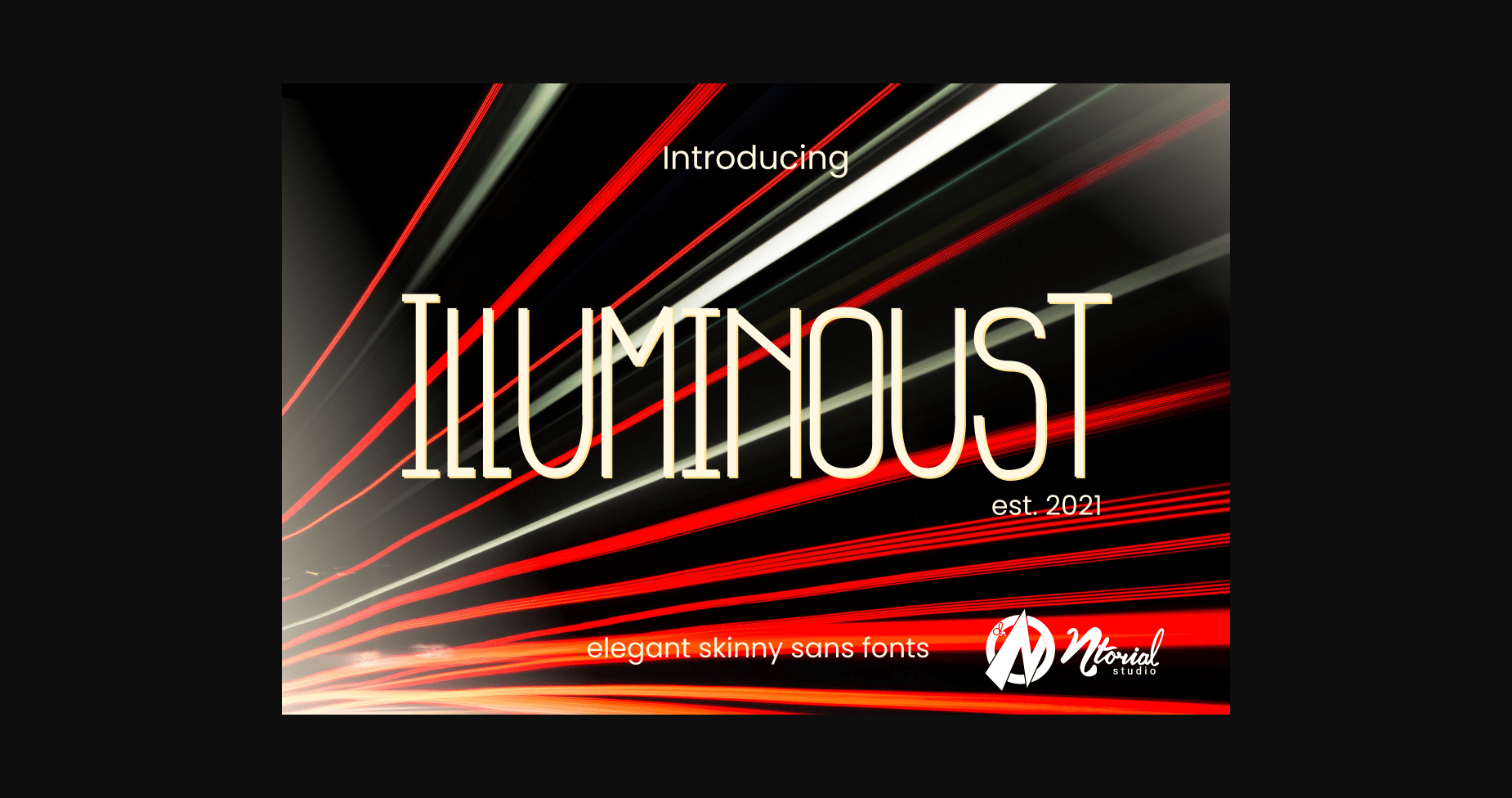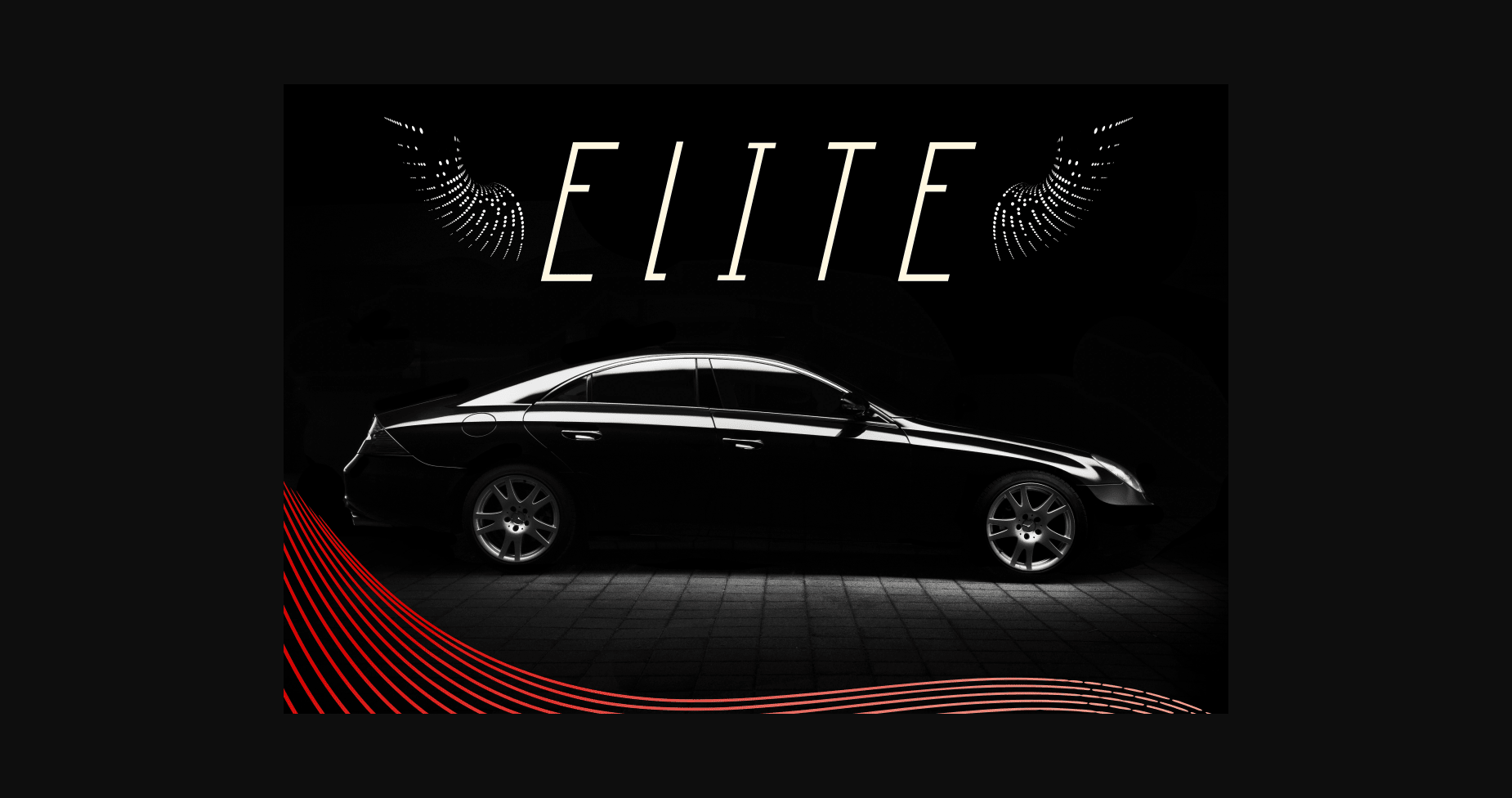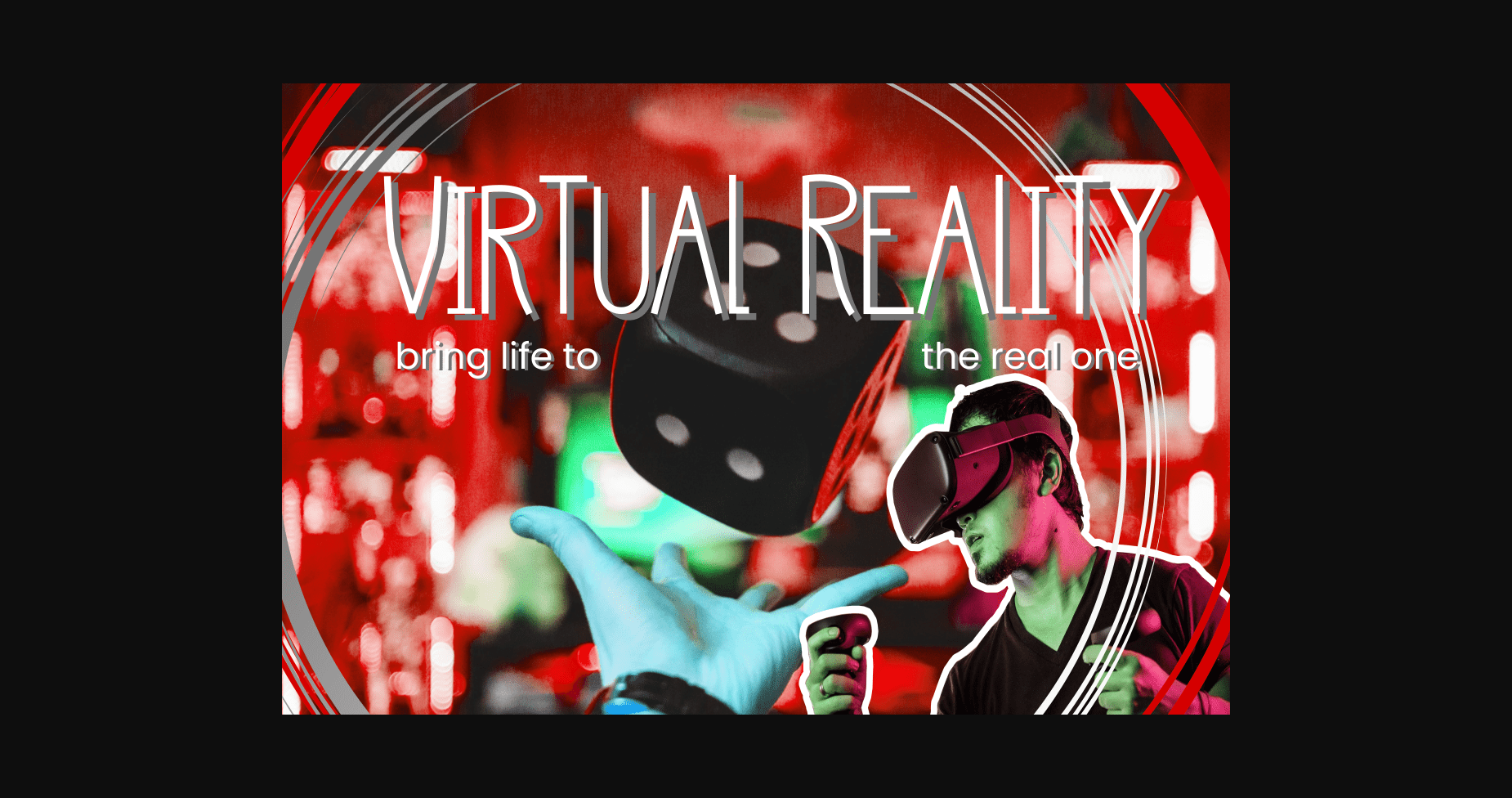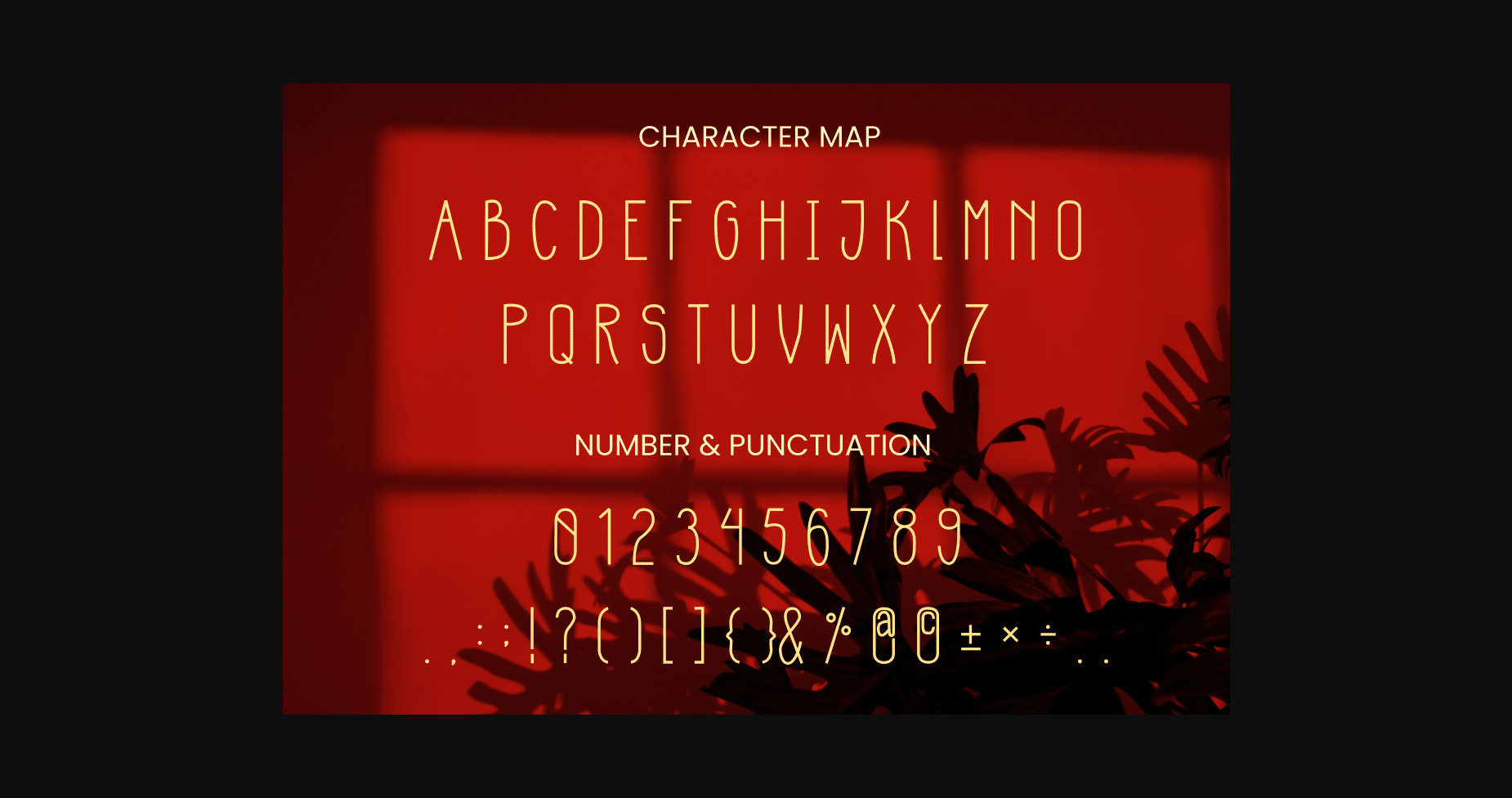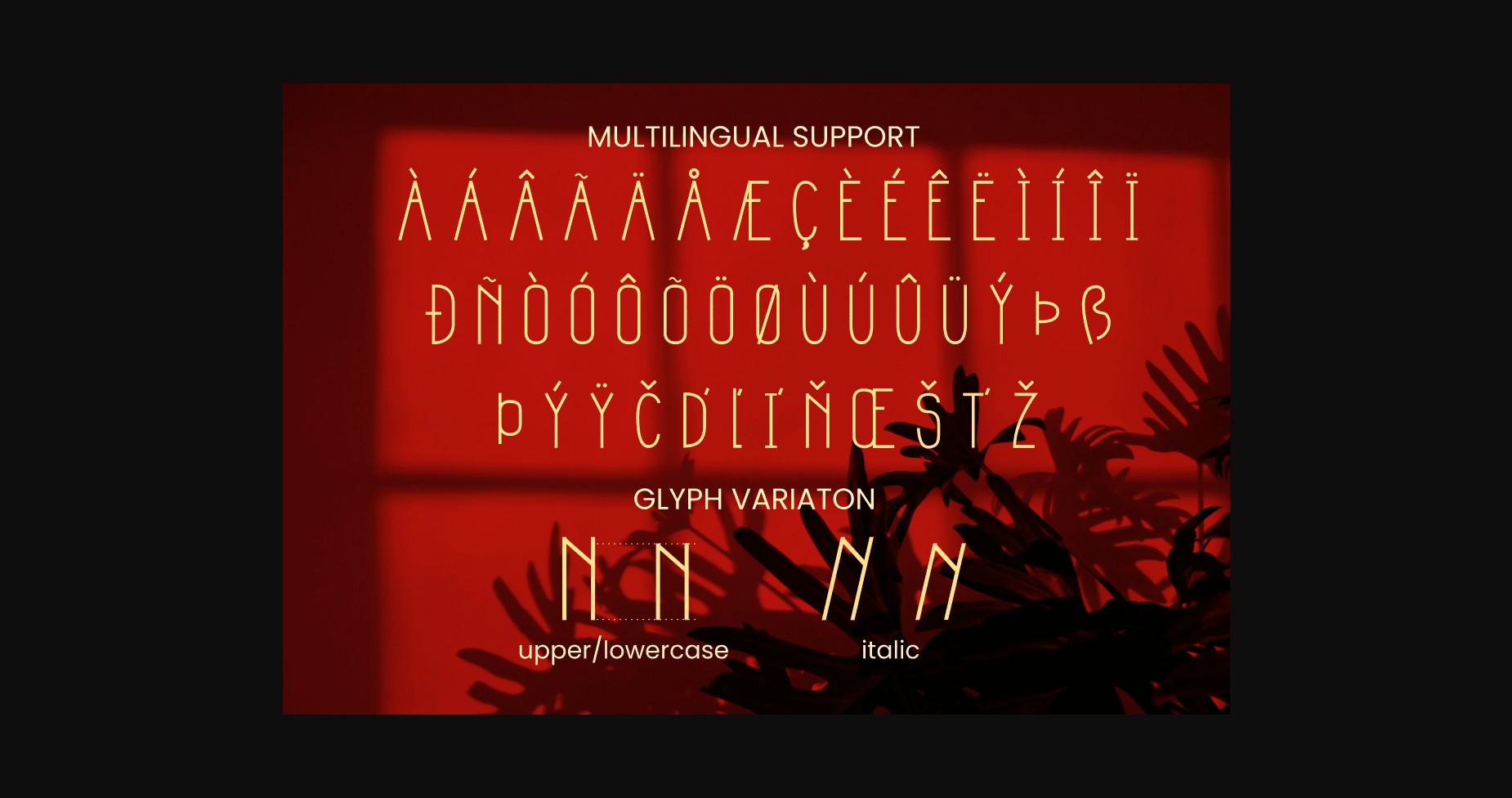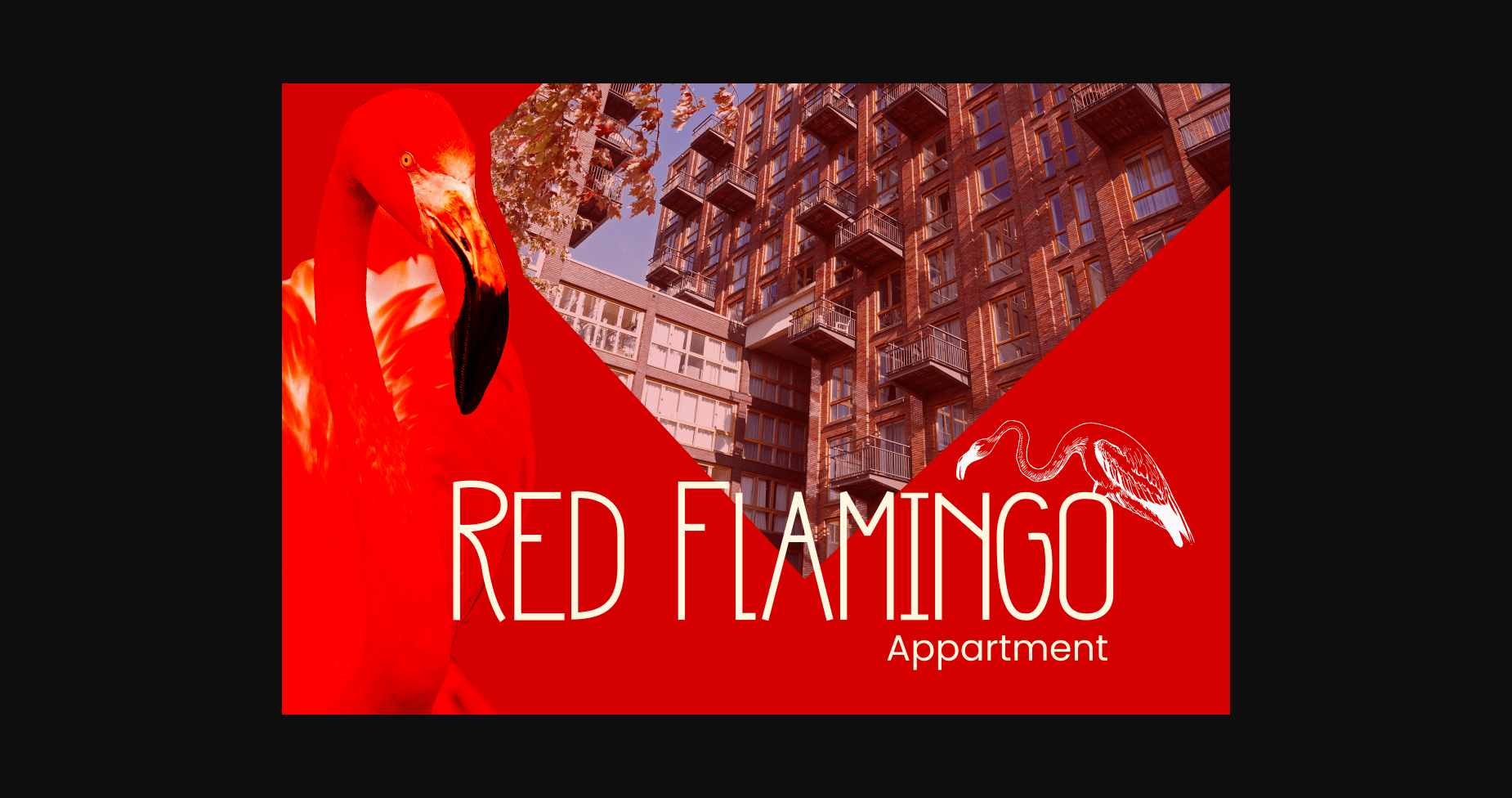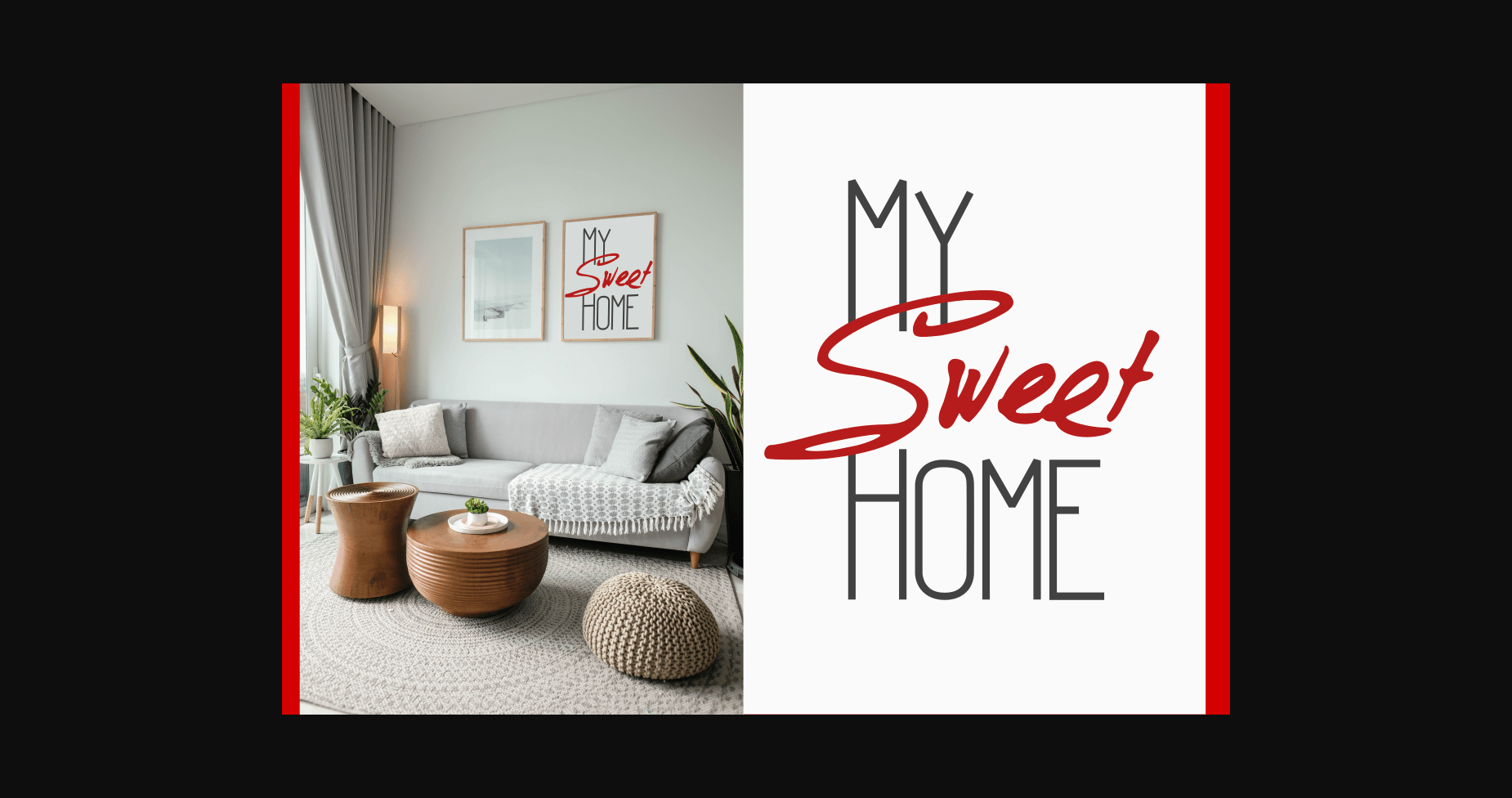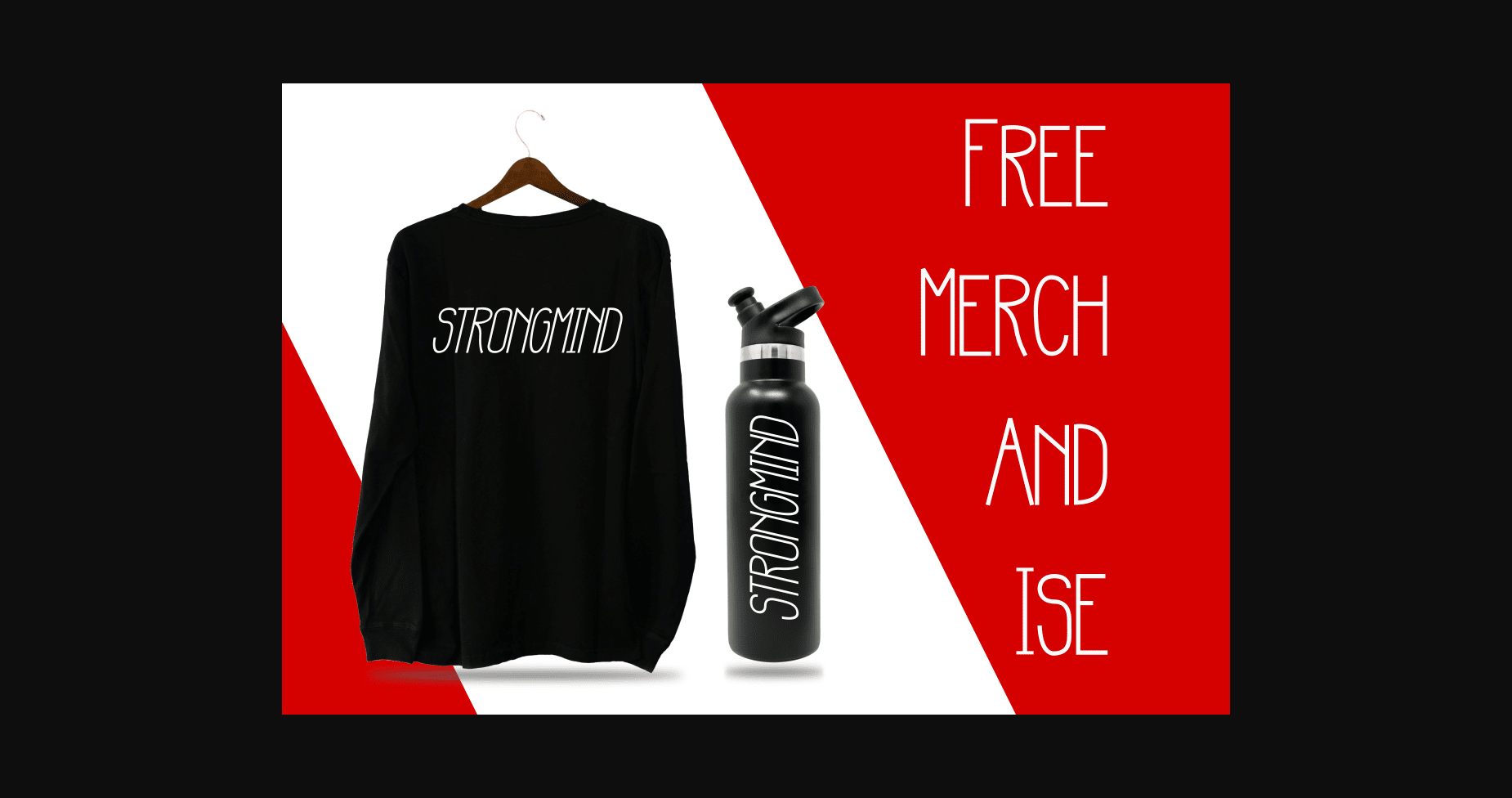
Illuminoust Font
About Illuminoust Font
Illuminoust is a tall, simple and neat sans serif font. It can be used for various creations that are either formal or informal. Your imagination is the limit.